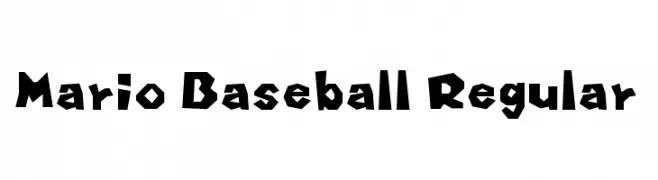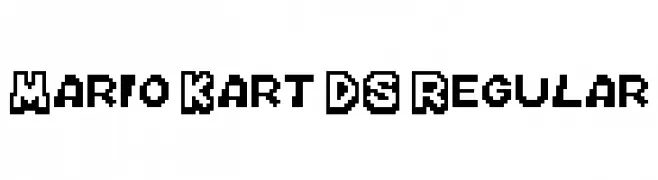
A playful, hand-drawn font with a whimsical and creative style.
A lively and expressive script font with fluid, dynamic strokes.
A modern serif font with unique serifs and a touch of elegance.
A playful, bold handwritten font with dynamic strokes and an informal style.
A bold, playful handwritten font with a casual and friendly style.
A classic serif font with modern elegance and medium contrast.
A bold, angular font with a playful, retro video game vibe.
A bold, cursive script font with elegant, flowing strokes.
A bold, pixelated font with a retro, video game-inspired style.